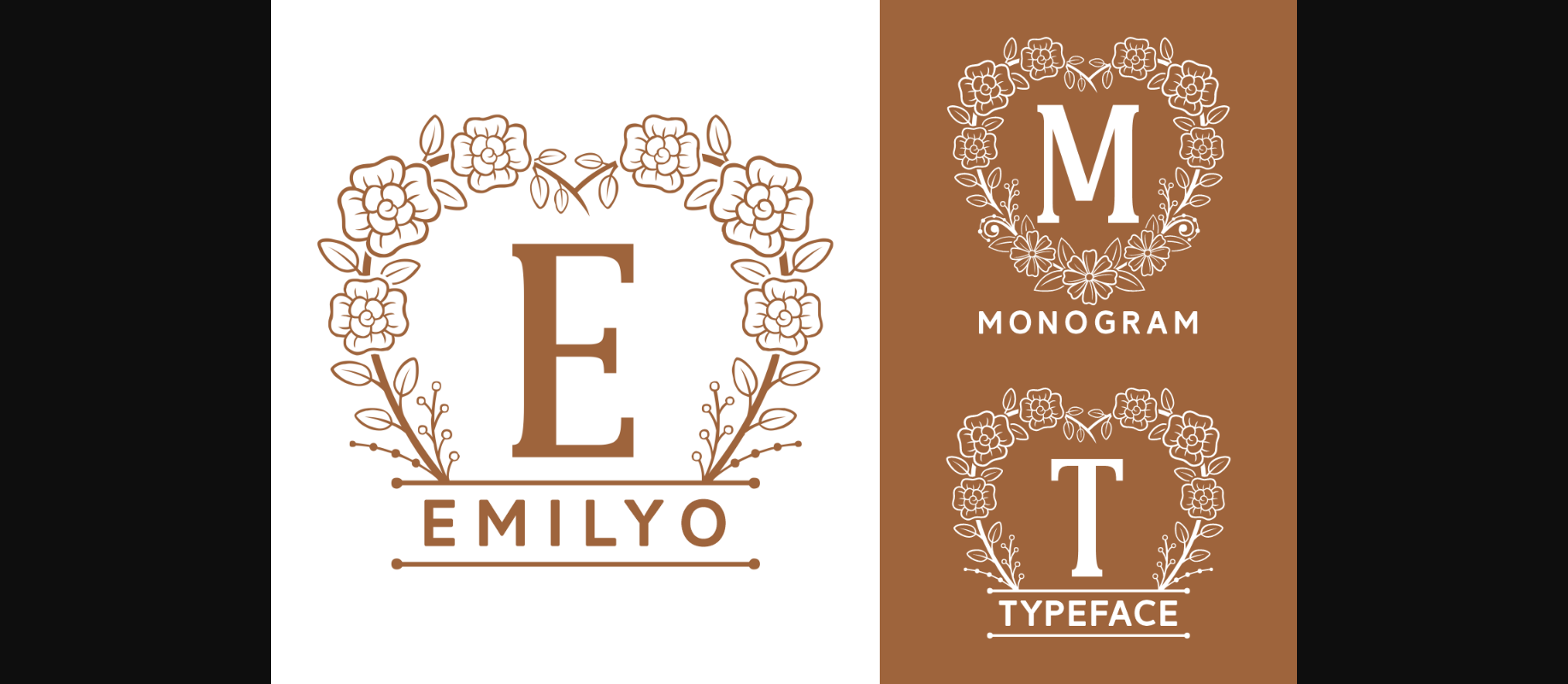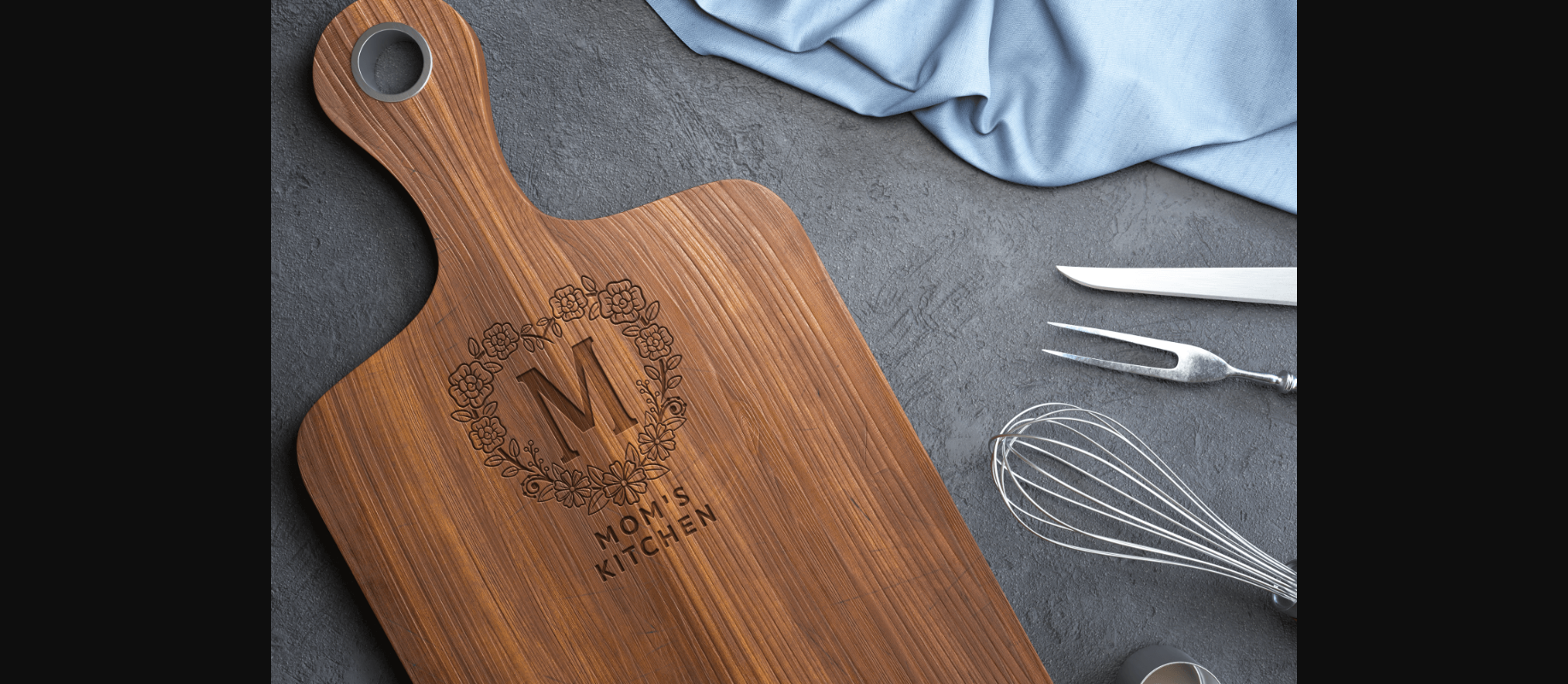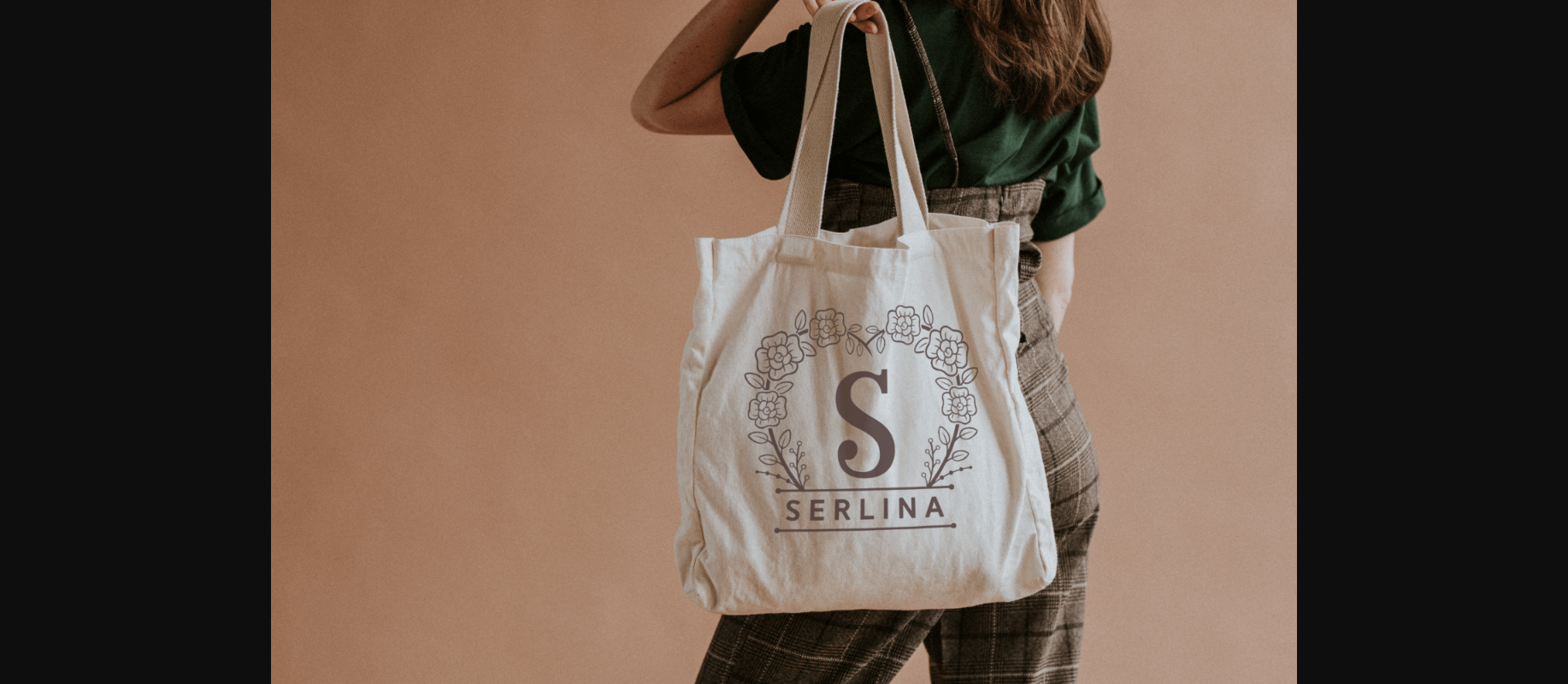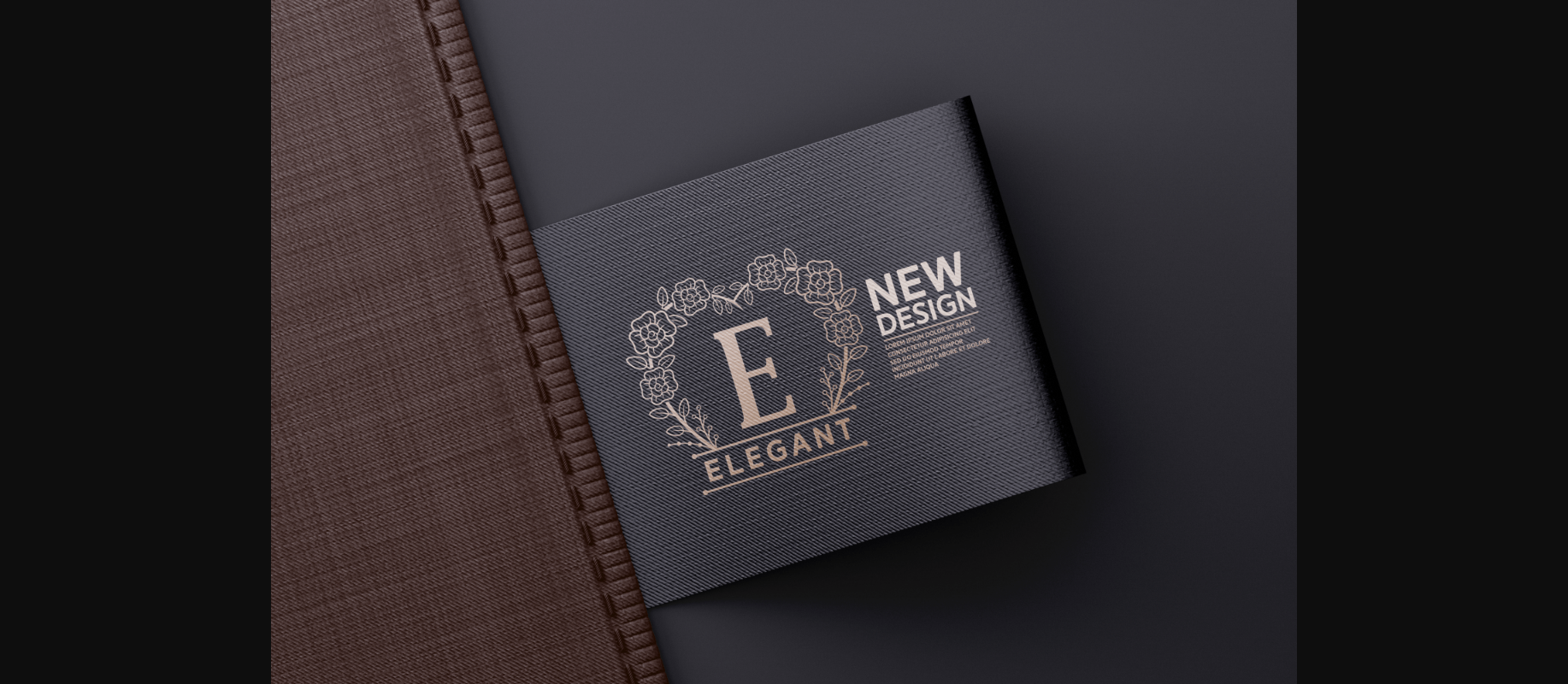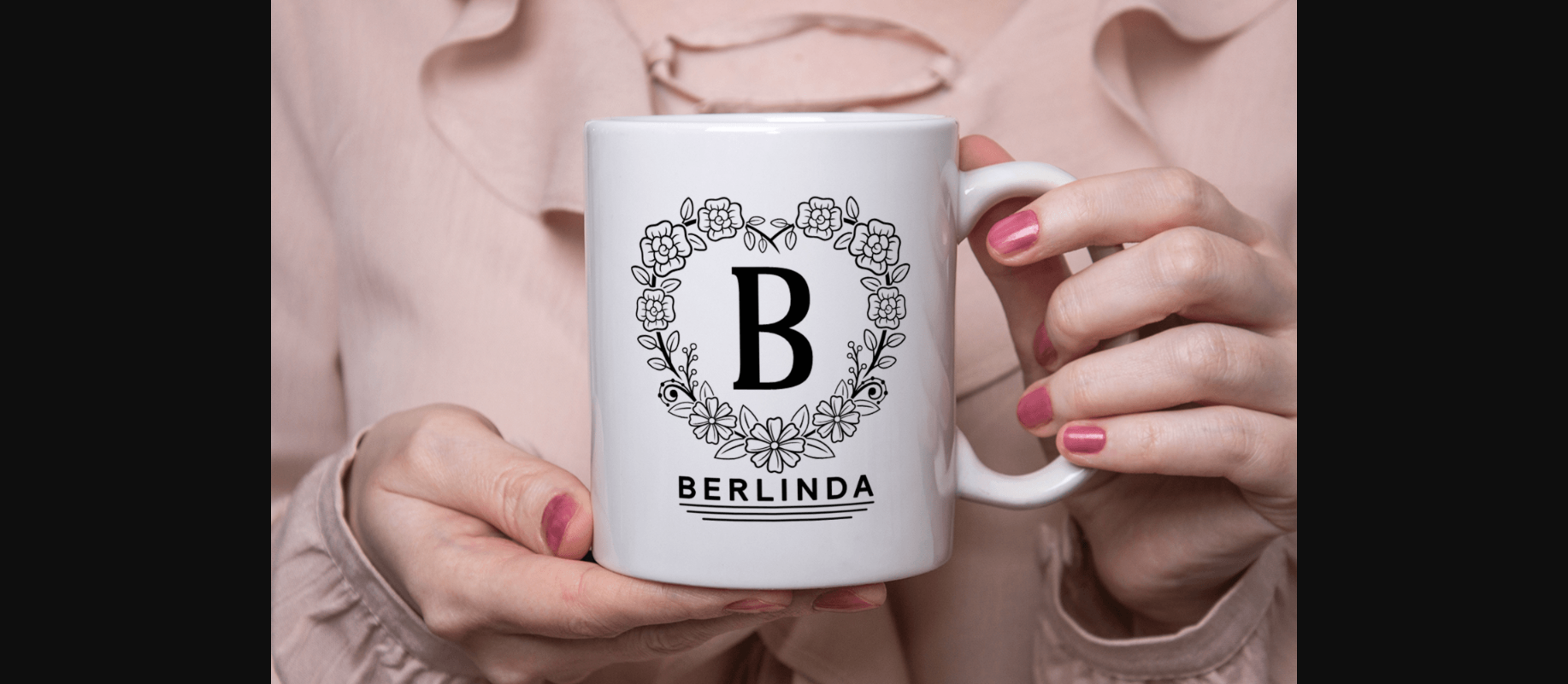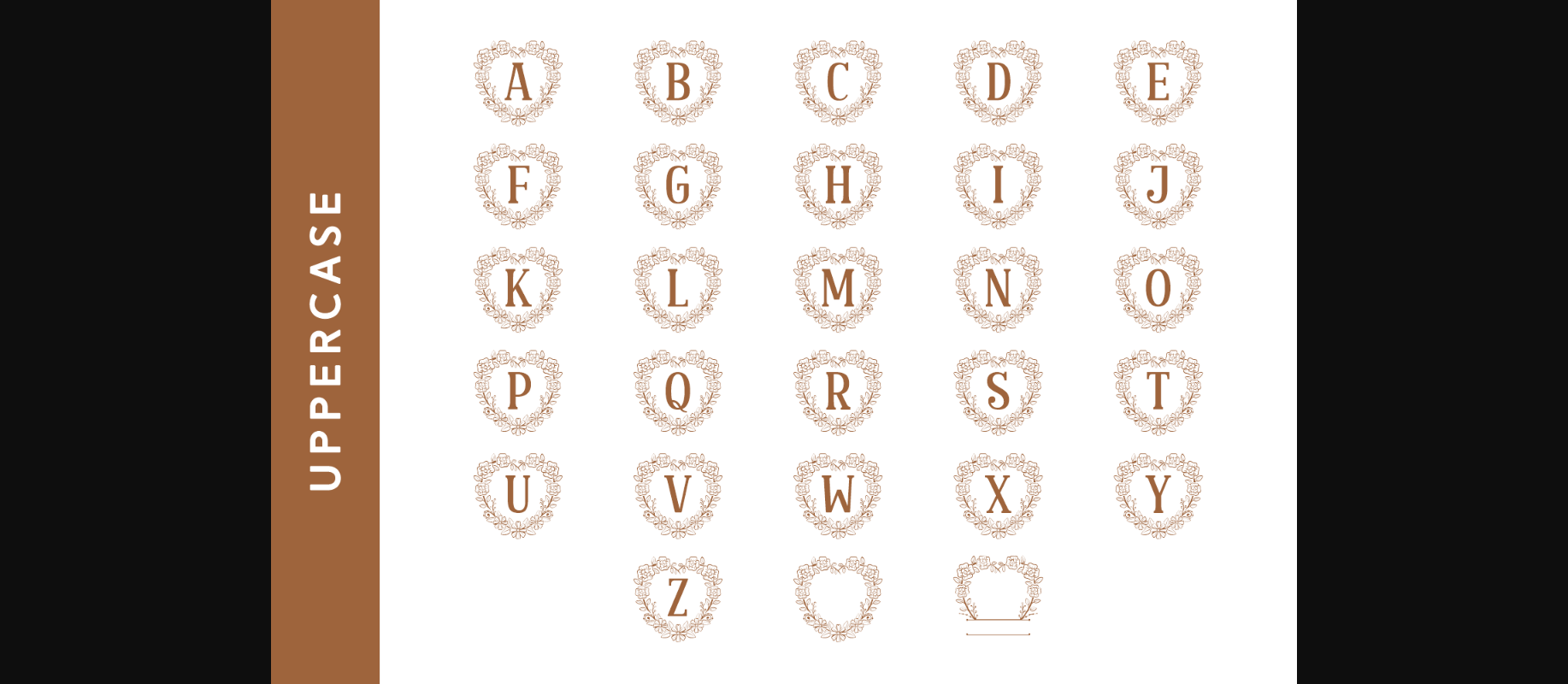
About Emilyo Font
Emilyo is a floral and beautiful monogram typeface. These gorgeous framed characters are perfect for creating elegant logos, branding projects, cards, wedding designs, invitations, fabric prints, and many more.